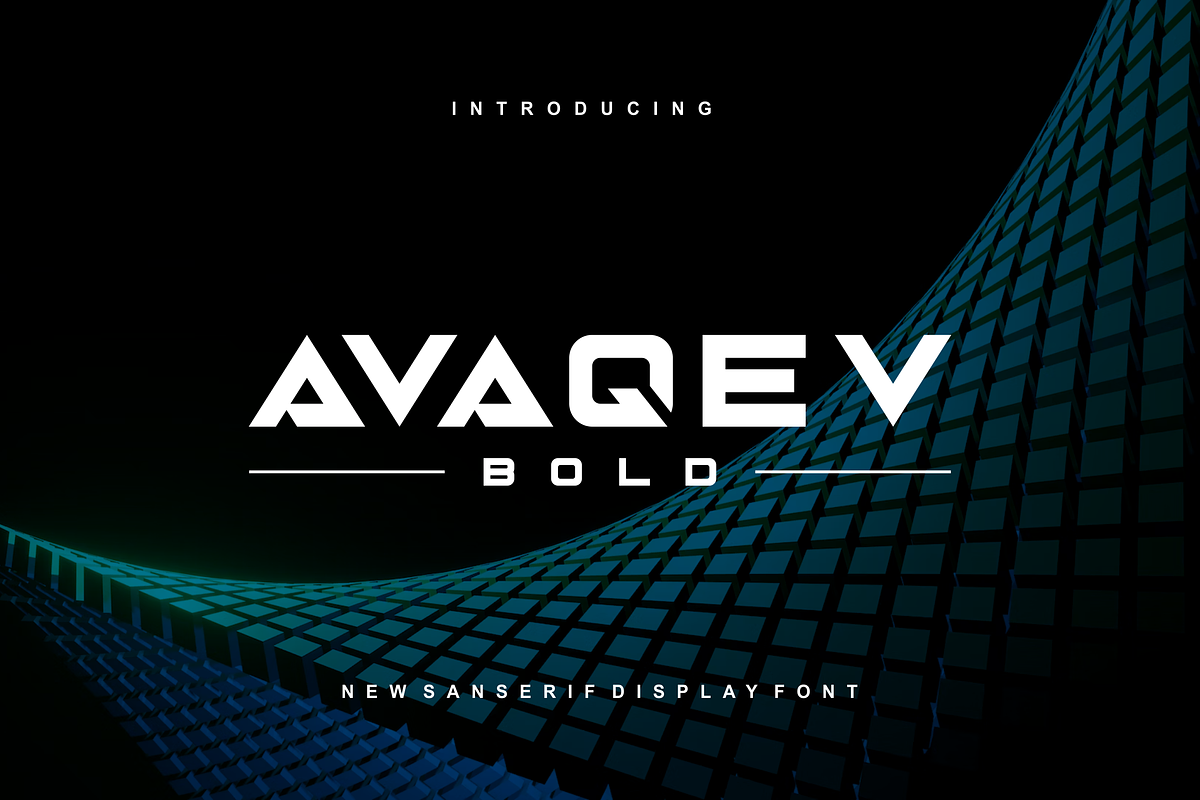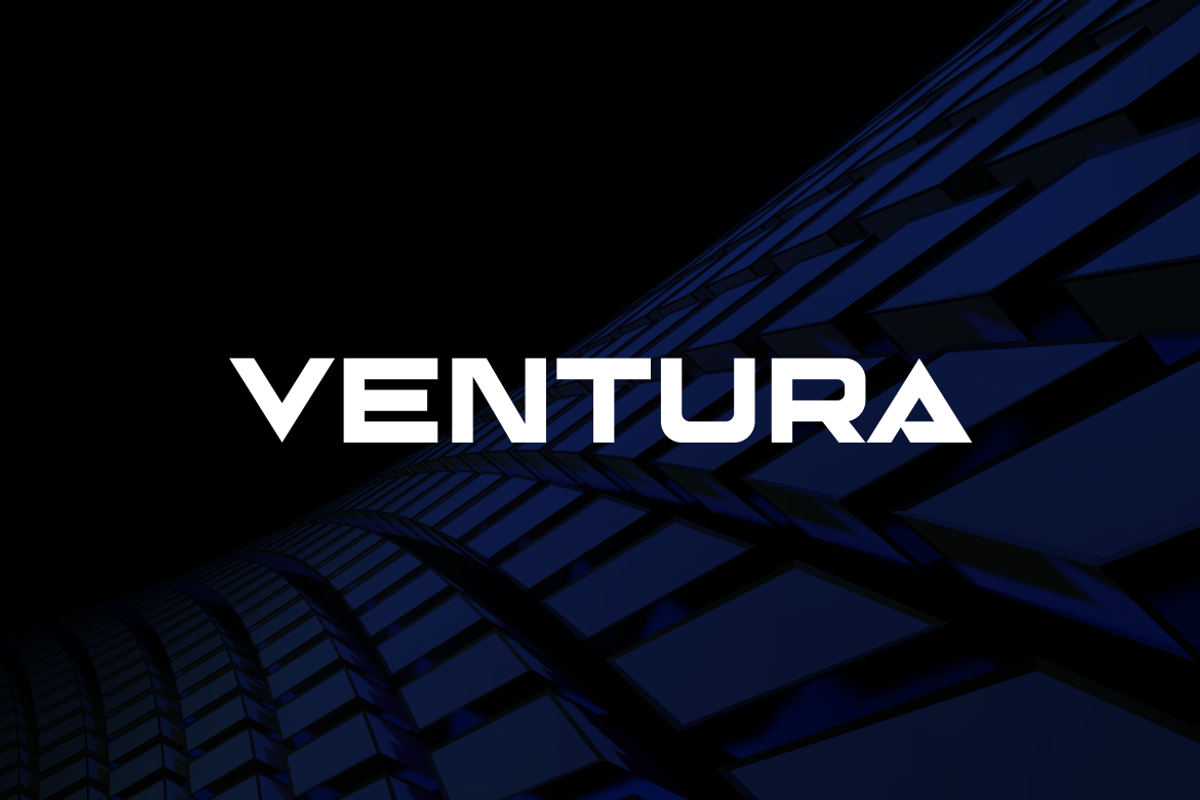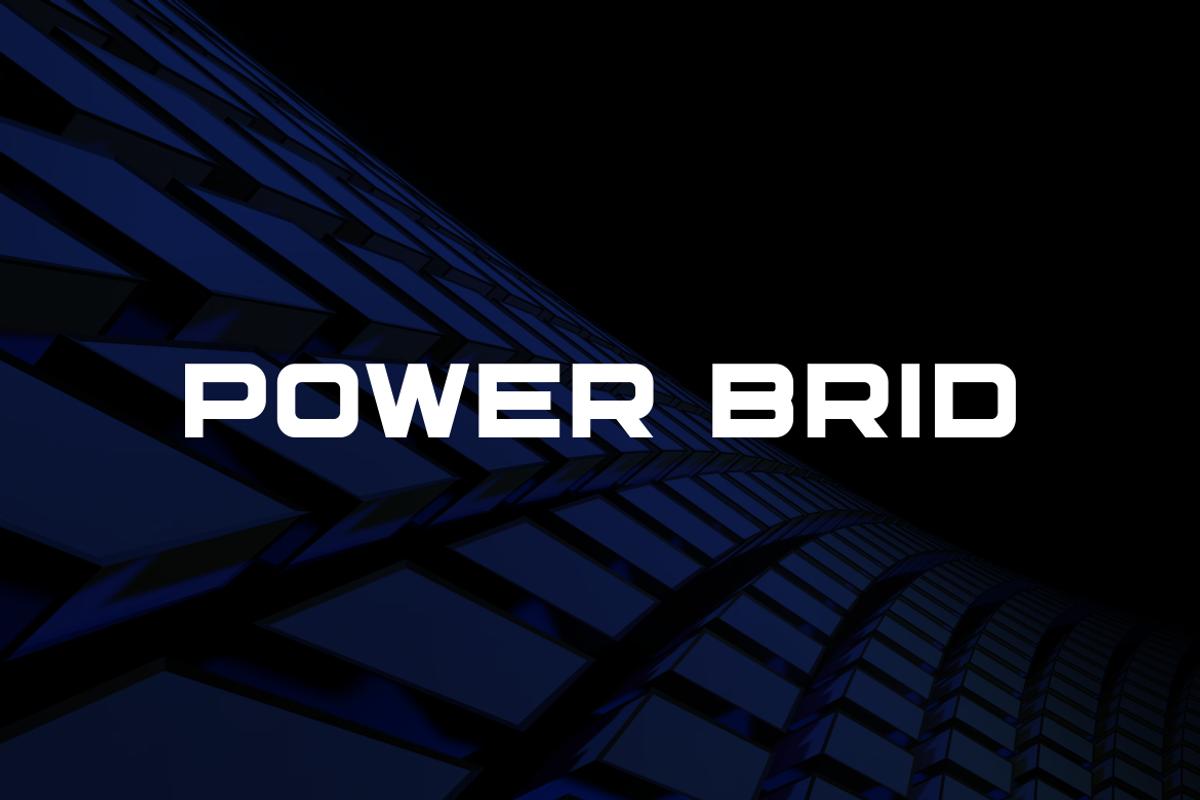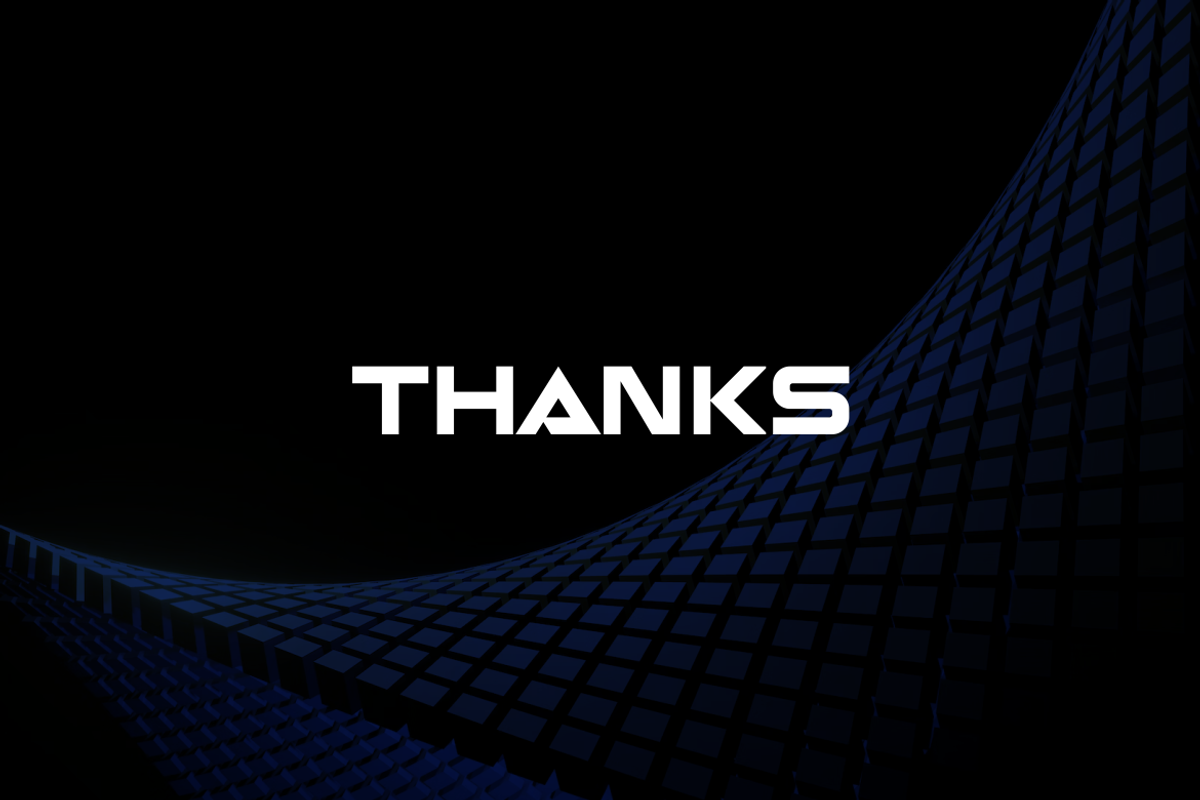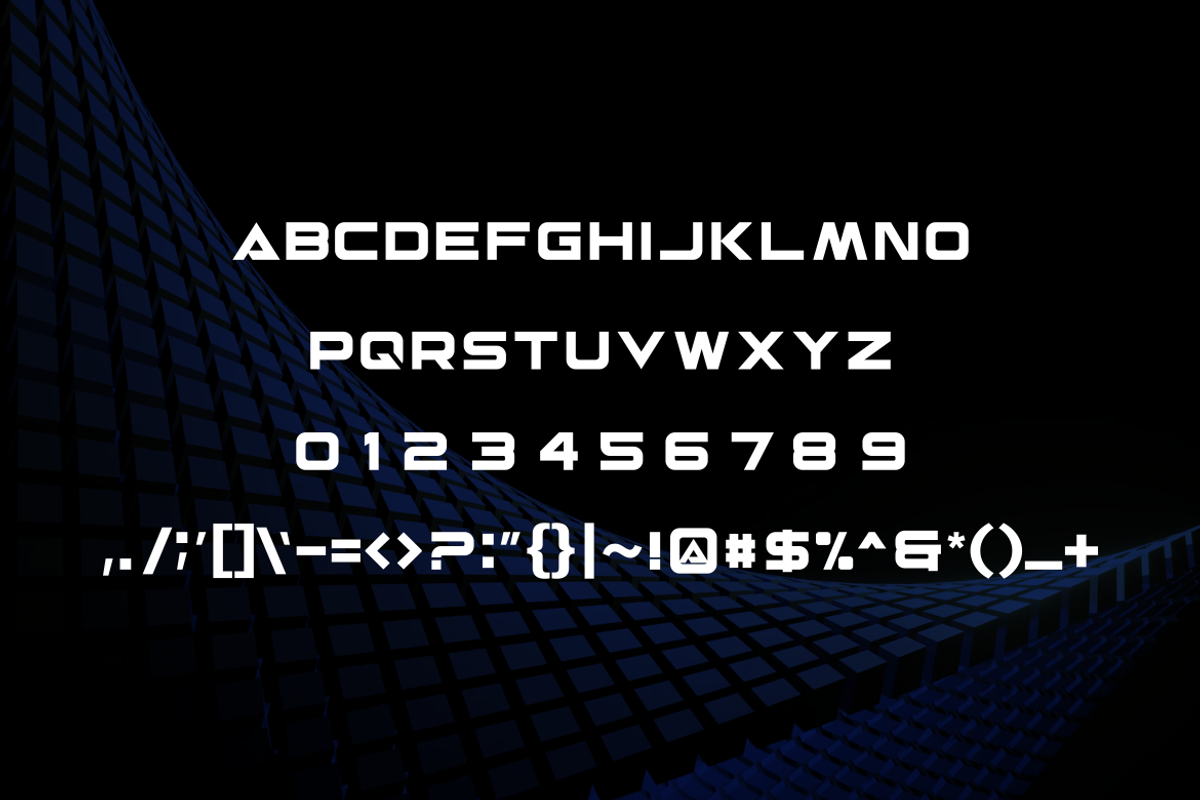
Avaqev -Font
- Modern Font is a bold and authentic display font. The font is suitable for any branding project like logo, t-shirt printing,, and many more. outstanding in a wide range of contexts.